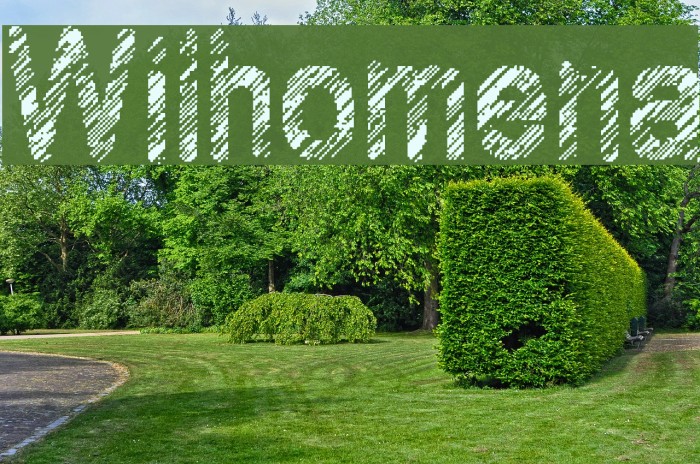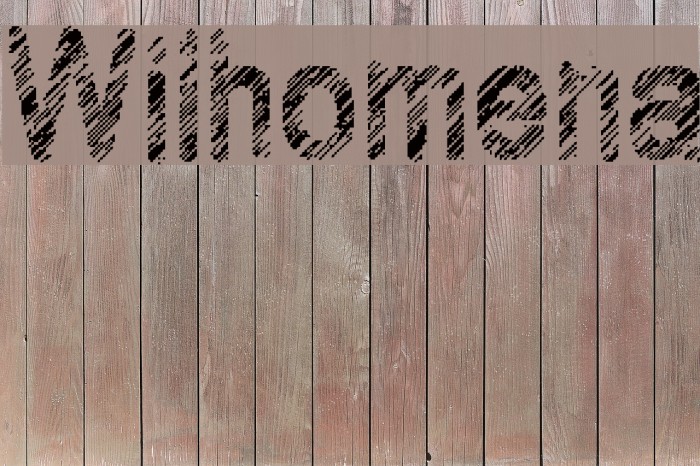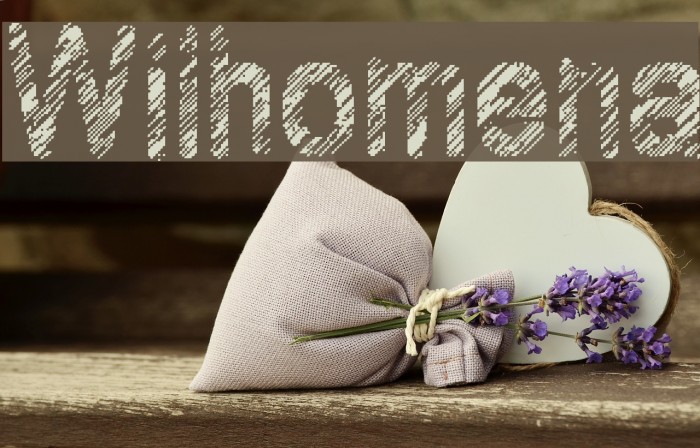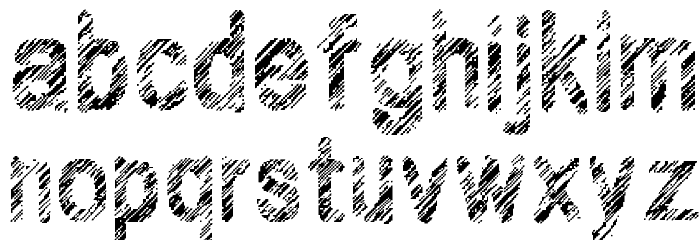
Wilhomena Font
This font features a distinctive textured appearance, characterized by diagonal hatching that gives it a hand-drawn, sketch-like quality. The uppercase and lowercase letters maintain a consistent style, with bold strokes that are evenly spaced, creating a cohesive look. The numbers and special characters follow the same design principles, ensuring uniformity across all glyphs. This font's unique texture makes it stand out, adding a creative flair to any design project. Its bold presence is balanced by the intricate detailing, making it suitable for both artistic and professional applications.
A textured, sketch-like font with bold, evenly spaced strokes.
• Proposed Projects: Ideal for artistic projects, branding, posters, and creative headlines.
• Category: Decorative/Display
• Overall Style: Decorative
• Use Case: Headlines, Logos, Posters